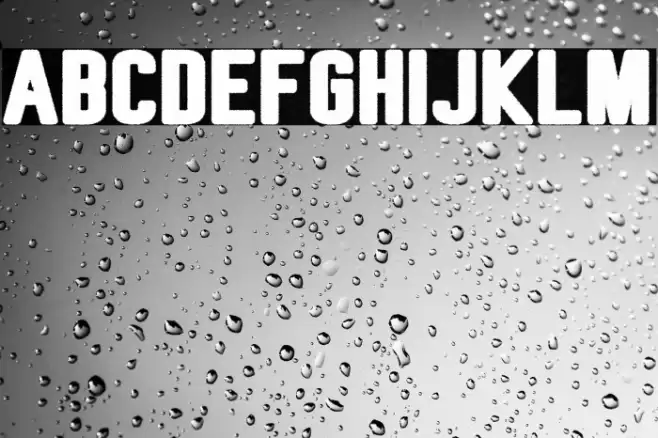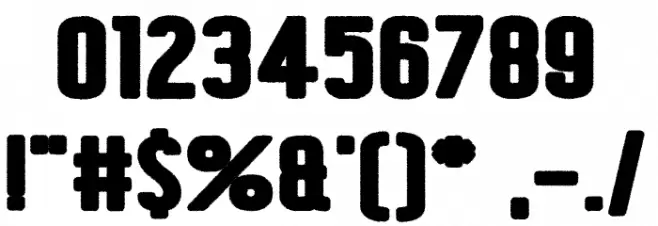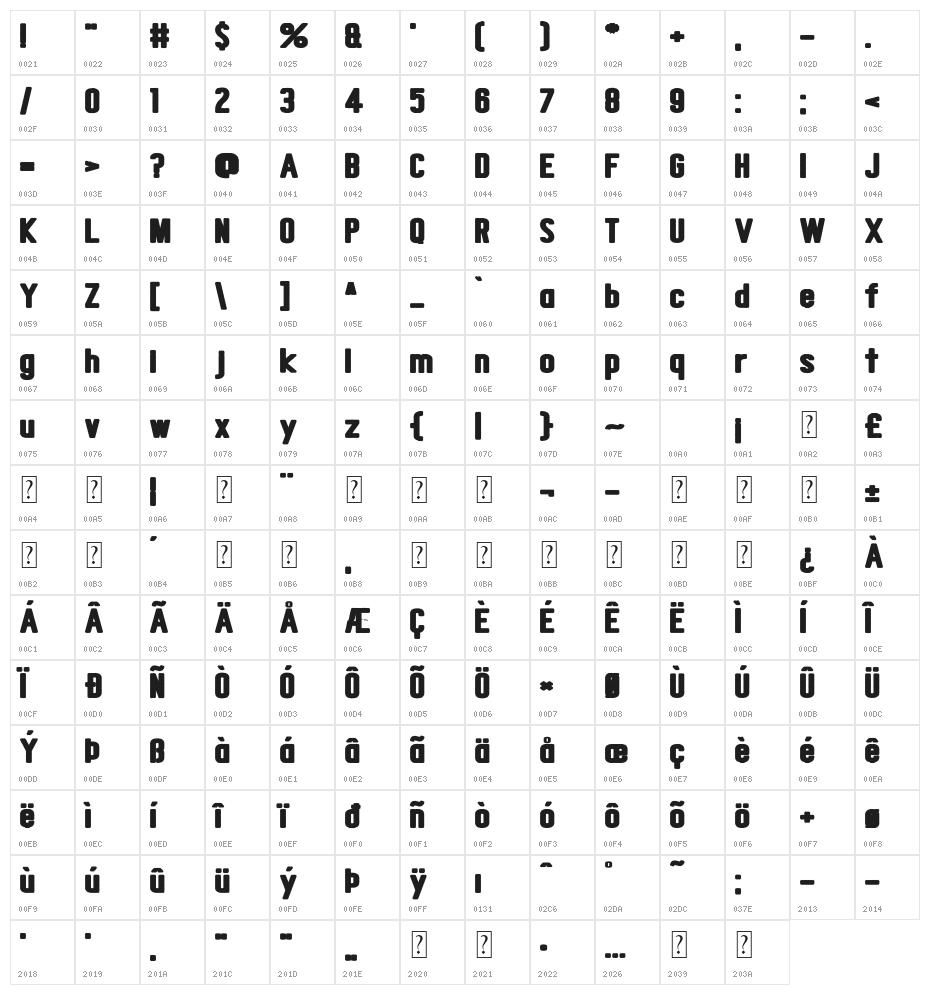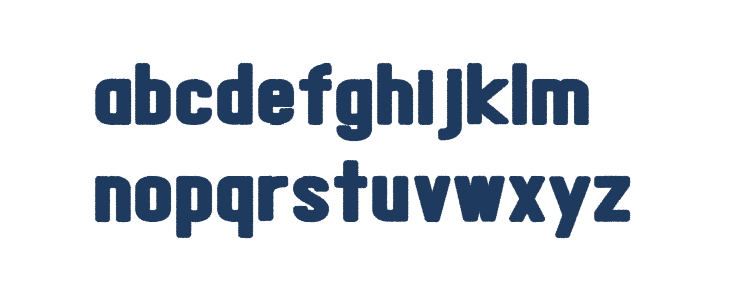
Snow Deep Font
Snow Deep Description
This font features bold, rounded characters with a substantial presence, making it ideal for impactful designs. The uppercase and lowercase letters maintain a consistent weight, offering a cohesive look across different text sizes. The numbers and special characters are designed with the same boldness, ensuring uniformity. The rounded edges give it a friendly and approachable feel, while the thick strokes provide a strong visual impact. This font is versatile, suitable for both digital and print media, and can be used to convey messages with clarity and emphasis.
A bold, rounded font with a strong, cohesive presence from Uncategorized fonts.
- Proposed Projects: Ideal for posters, headlines, branding, and advertising materials where a strong visual impact is needed.